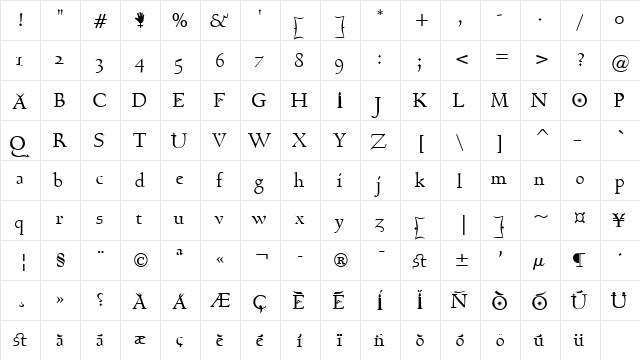
Aquelarre Normal
Design Context for Aquelarre Typeface
Aquelarre is a composed and adaptable typeface that performs quietly and consistently across a wide range of design contexts.